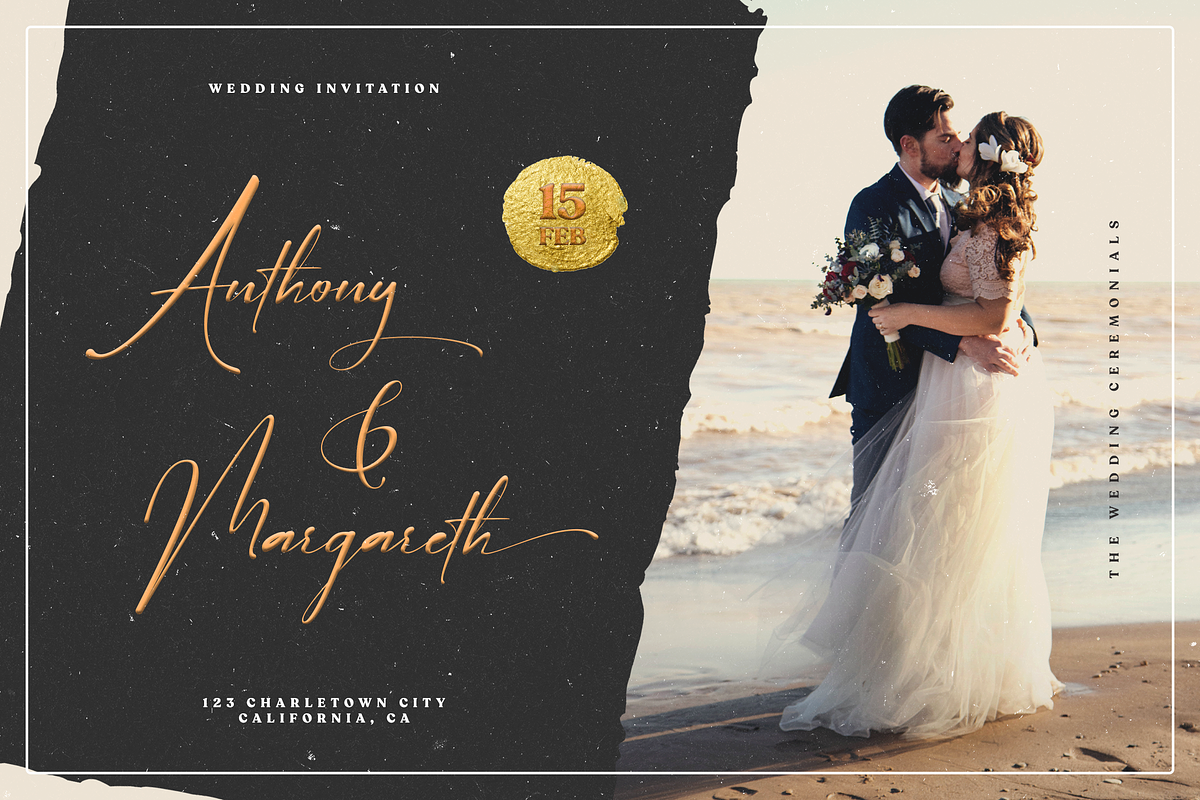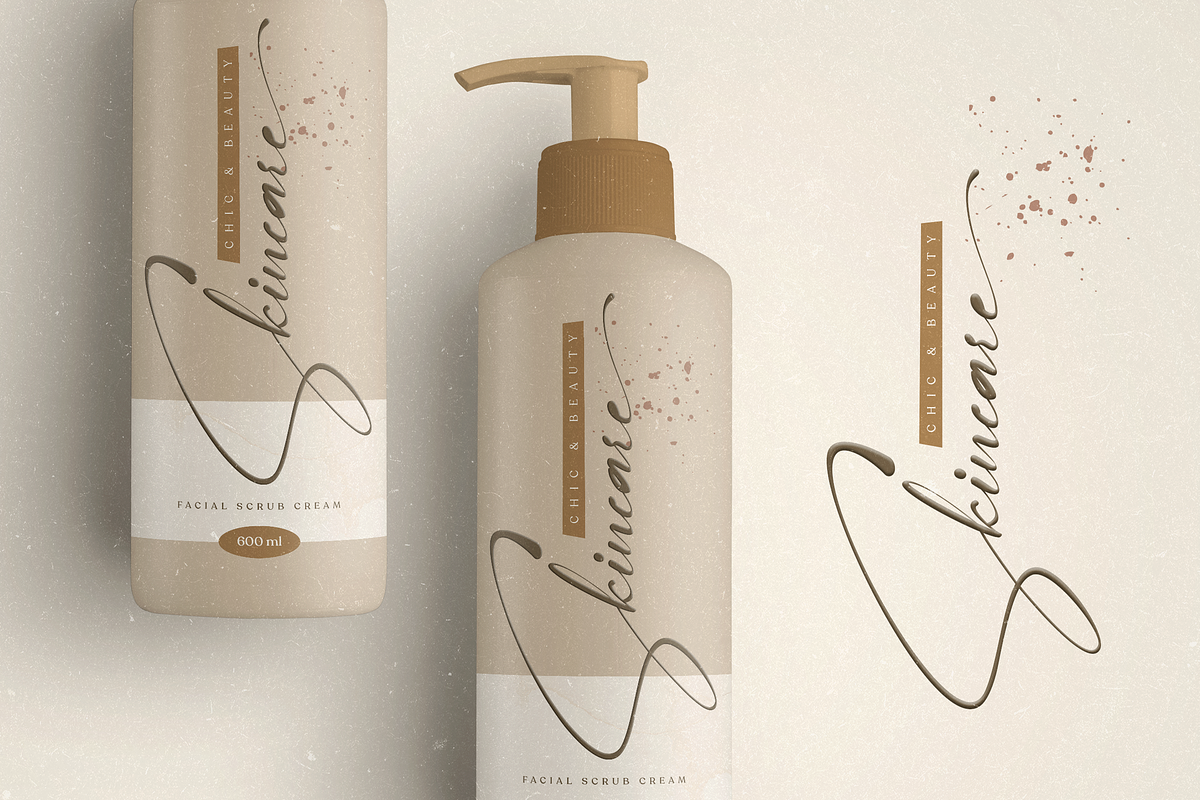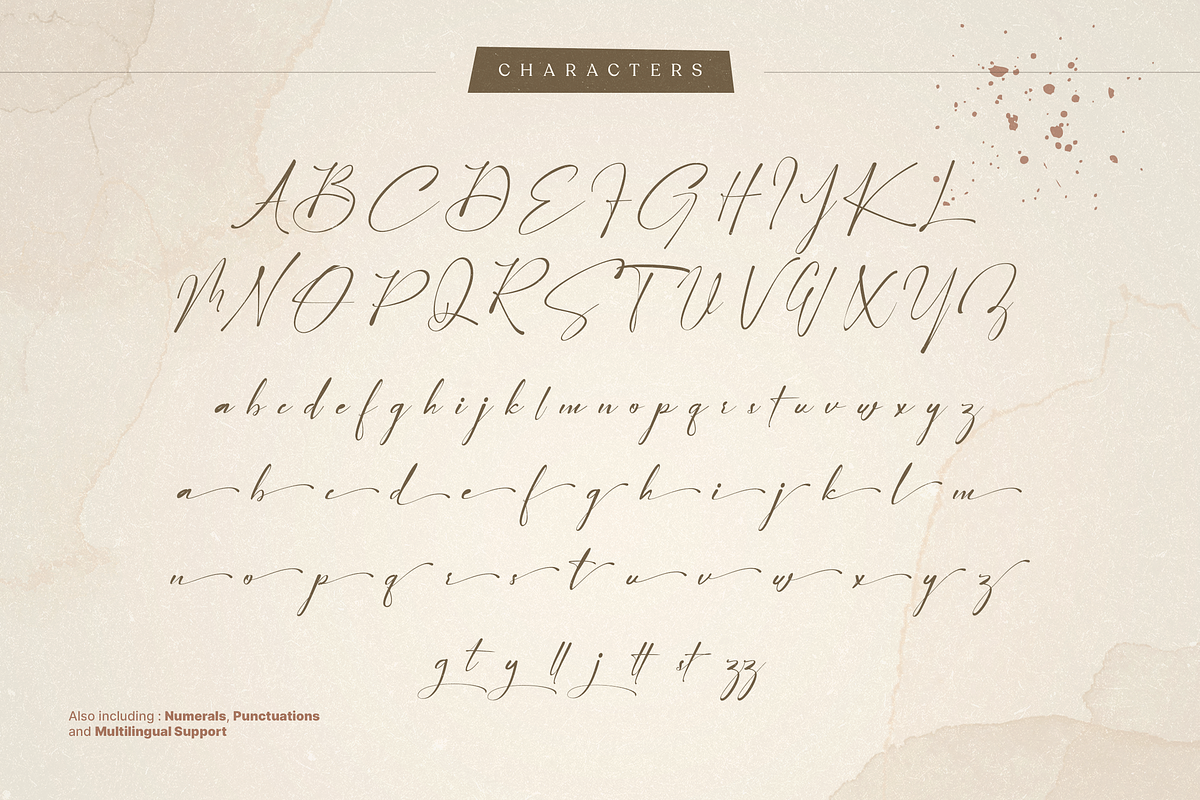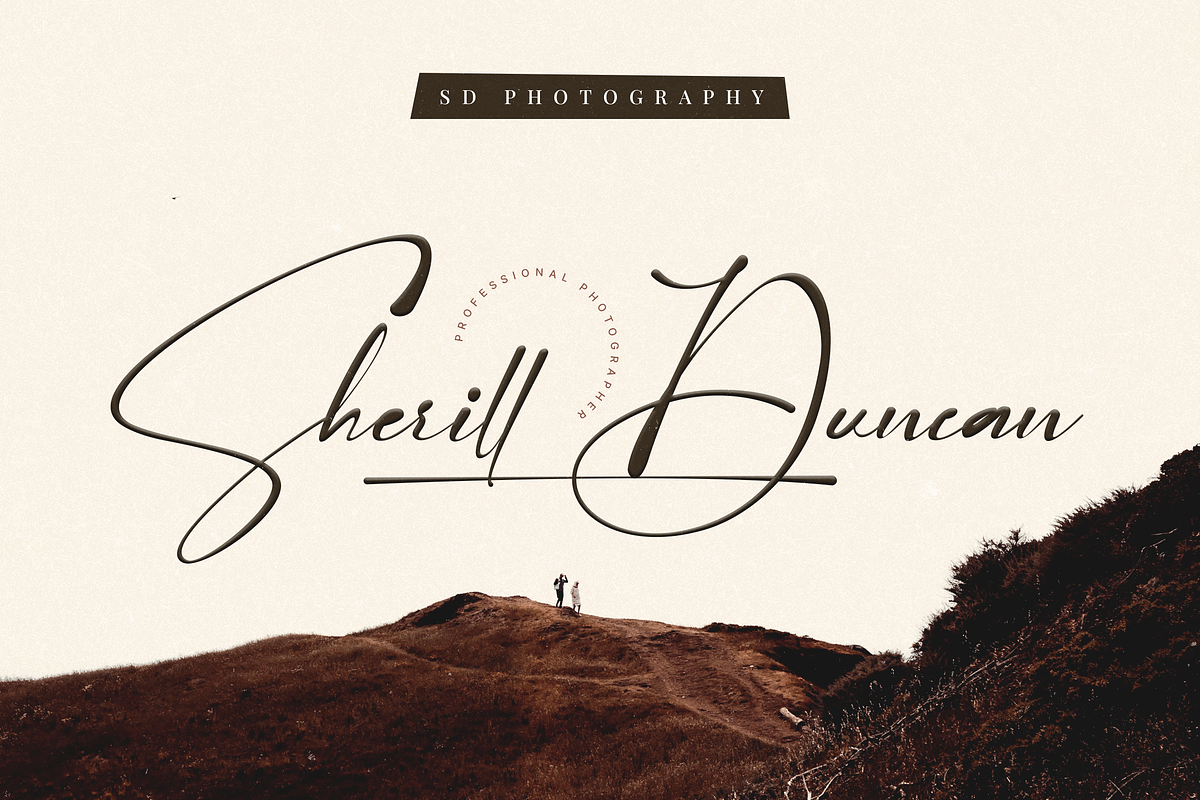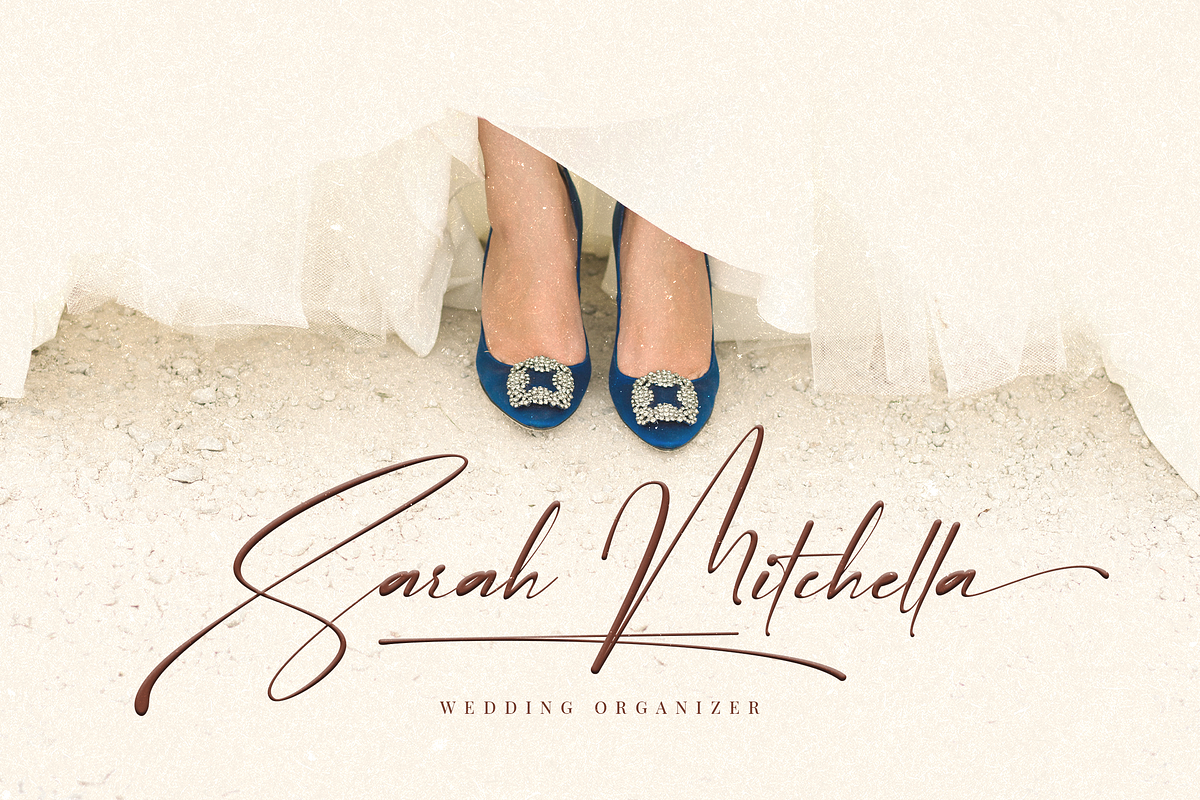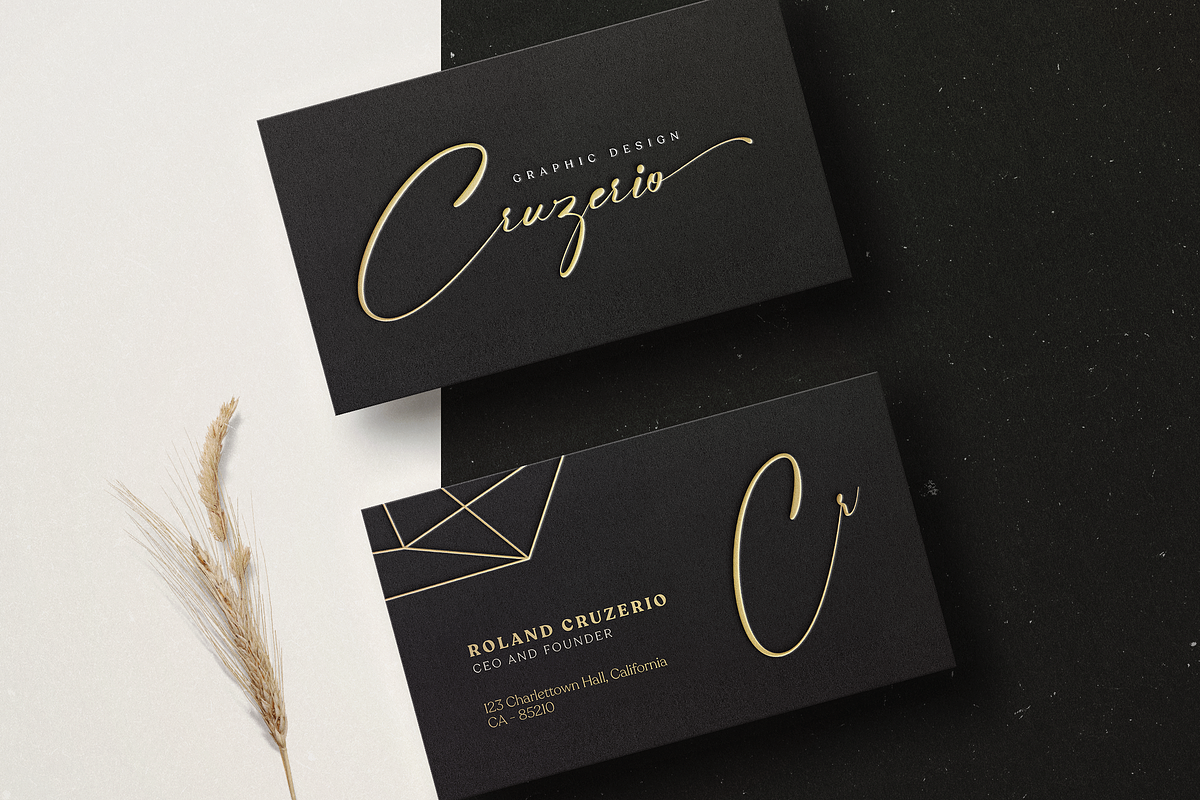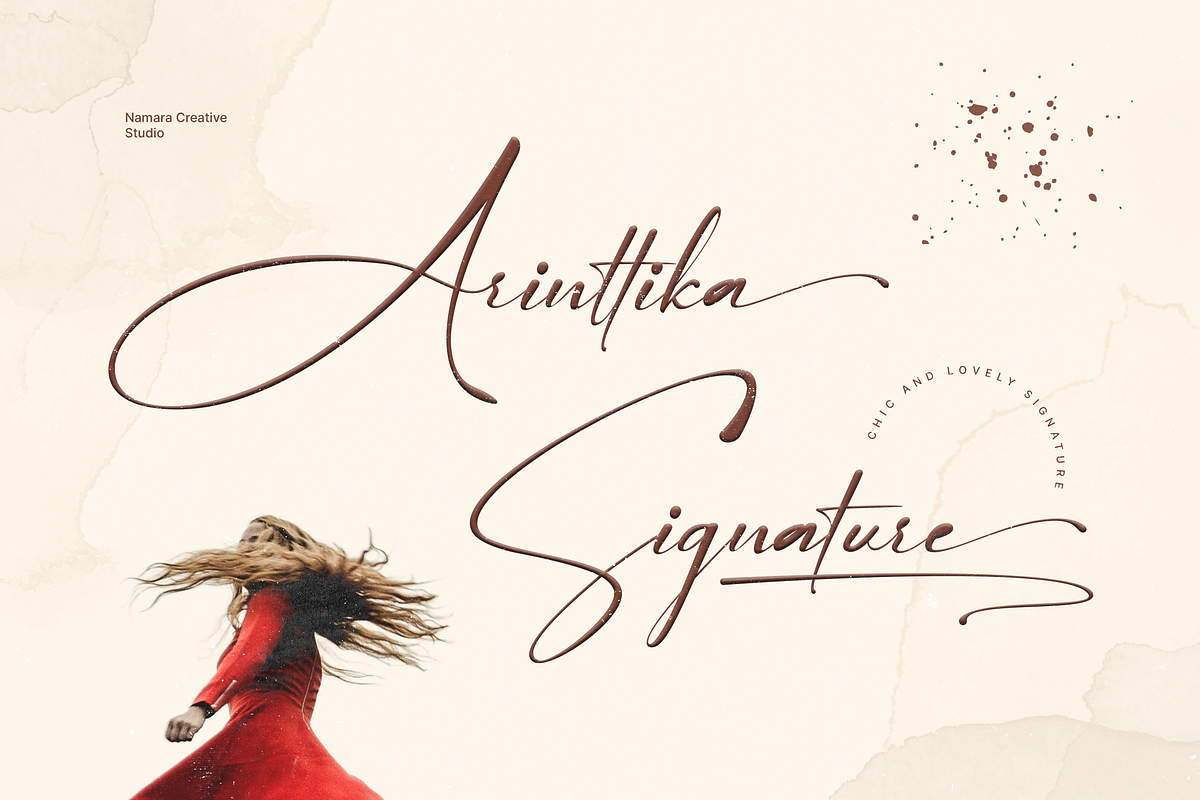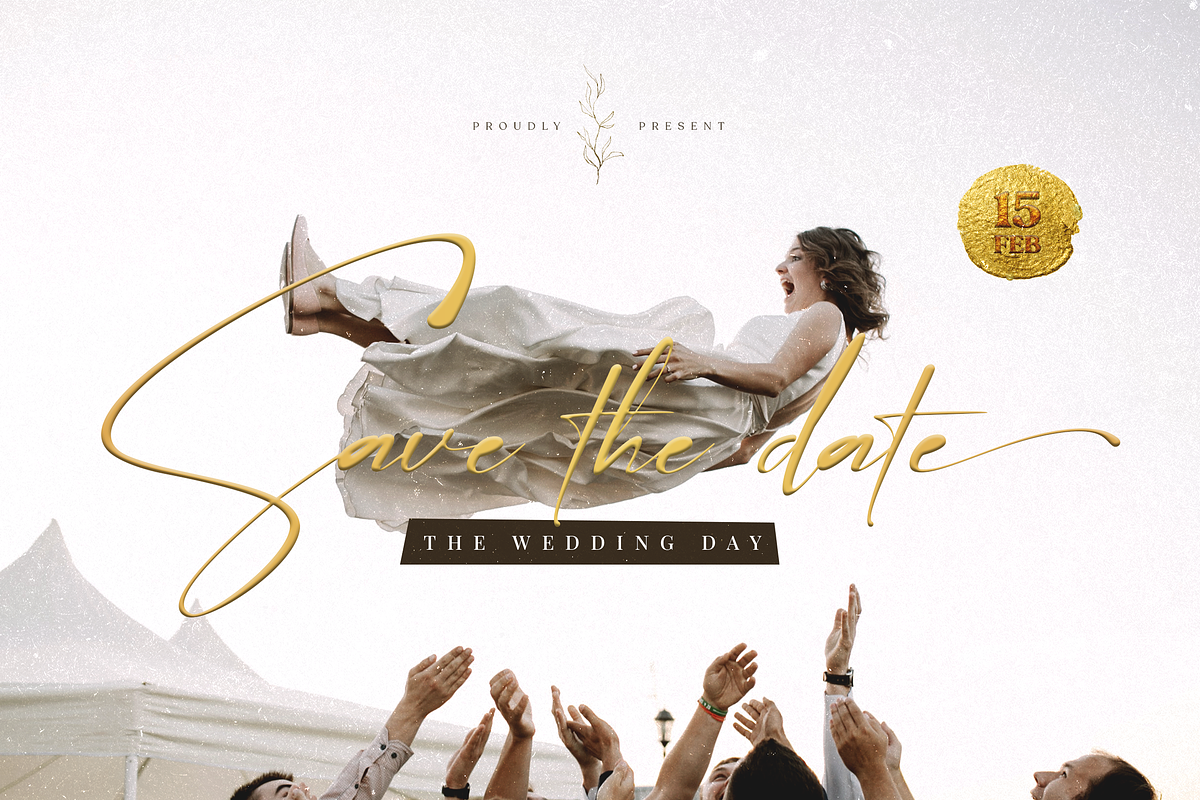
Arinttika Signature
Arinttika is a natural and stylish signature font with a sense of elegant souls. perfect for many different project such as logos & branding, invitation, stationery, wedding designs, social media posts, advertisements, product packaging, product designs, label, photography, watermark, special events or anything. Including uppercase, lowercase, swashes, numerals, punctuations, multilingual support and the alternates of lowercase with ending swashes.